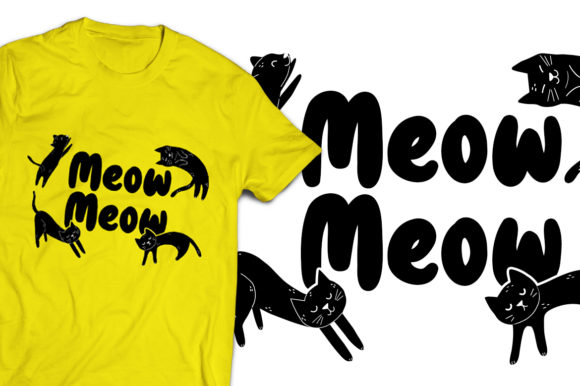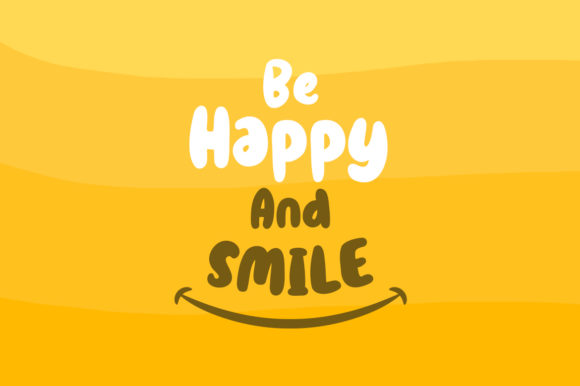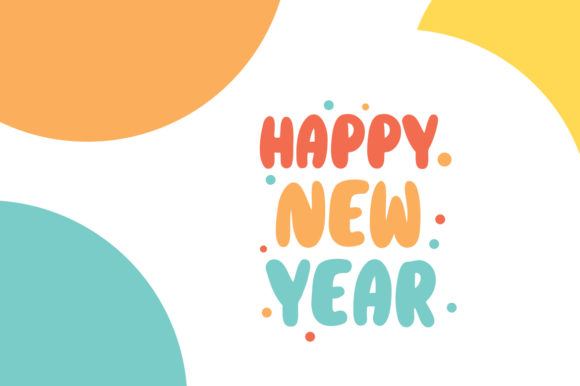
Introduction to Jalibar Font
Jalibar is a fun and thick lettered display font.
Bold yet friendly, this font will instantly become an asset to your library due to its wide impact and versatility .